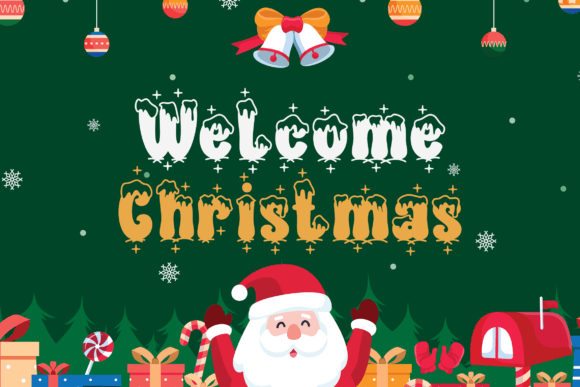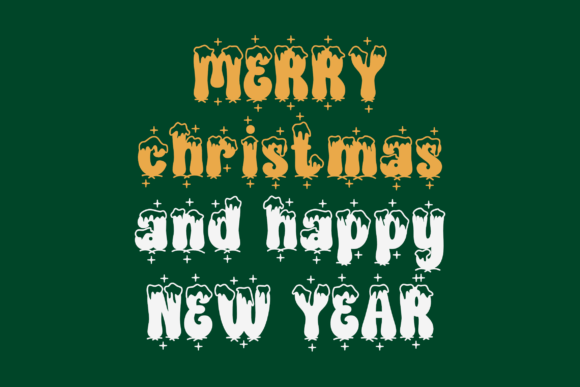
The Magic of Christmerry Font: A Designer’s Delight
It’s that time of the year again – Christmas is just around the corner, and as designers, we’re on the lookout for that perfect font to make our holiday projects shine. I still remember the year I was working on a Christmas card design for a client, and I just couldn’t find the right font to capture the festive spirit. The client wanted something merry, something bright, and something that would make their card stand out from the rest. That’s when I stumbled upon Christmerry Font, and let me tell you, it was love at first sight!
An Honest Review of Christmerry Font
- ✨ Unique and festive design that’s perfect for Christmas-themed projects
- ✅ Highly versatile and can be used for a variety of design purposes, from Christmas cards to wedding invitations
- 🎉 Excellent OpenType features, including glyphs and stylistic alternates, that add an extra layer of creativity to your designs
- 💻 Great for both digital and print designs, with clear and crisp lines that render beautifully
While Christmerry Font is an amazing addition to any designer’s toolkit, there are a few things to keep in mind:
- ⚠️ Some of the more intricate details may not render well at very small font sizes
- 🤔 Limited availability of language support, so it’s best to check the font’s specifications before using it for non-English language projects
The Backstory of Christmerry Font
Christmerry Font was designed with one goal in mind: to bring a touch of festive magic to your designs. The font’s creator was inspired by the classic Christmas movies, nostalgic holiday advertisements, and the warm glow of twinkling lights. The result is a font that’s both fun and elegant, perfect for capturing the spirit of the holiday season.
Q: What type of projects is Christmerry Font best suited for?
A: Christmerry Font is perfect for Christmas cards, wedding invitations, branding, stationery, blog design, custom art, custom stamps, custom embossers, or any design purpose that requires a festive touch.
Q: Is Christmerry Font available in different languages?
A: Christmerry Font has limited language support, so it’s best to check the font’s specifications before using it for non-English language projects.